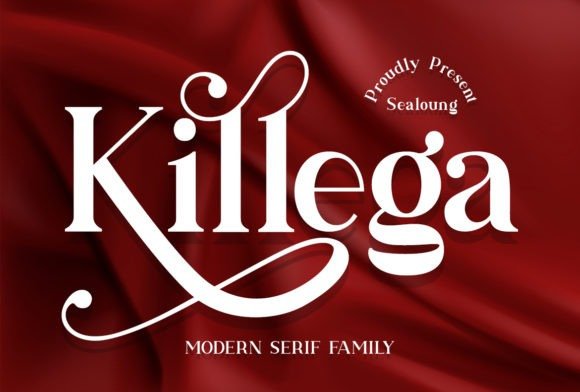
Killega Serif Font Free
Give your project an edge with the Killega Serif Font, This typeface has been made carefully to make sure its premium quality and luxury feel. Made from font designer named Sealoung. The many alternate character on serif makes this typeface unique and stands out rather than the regular sans font. Elegantly crafted to become a top choice, this font has the potential to bring each of your creative ideas to the highest level!